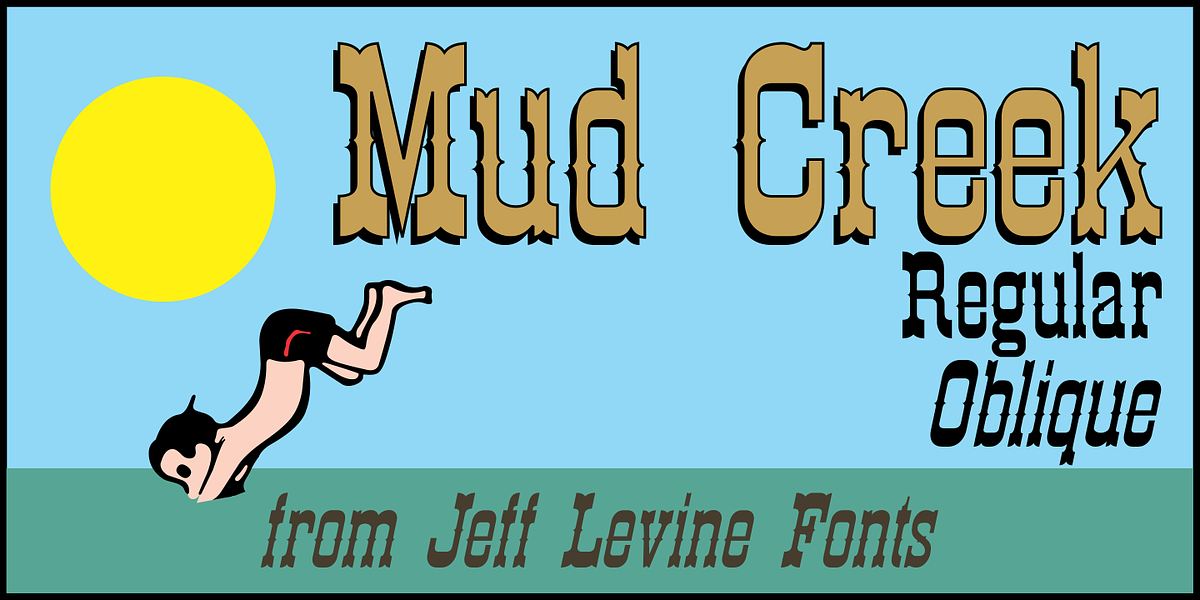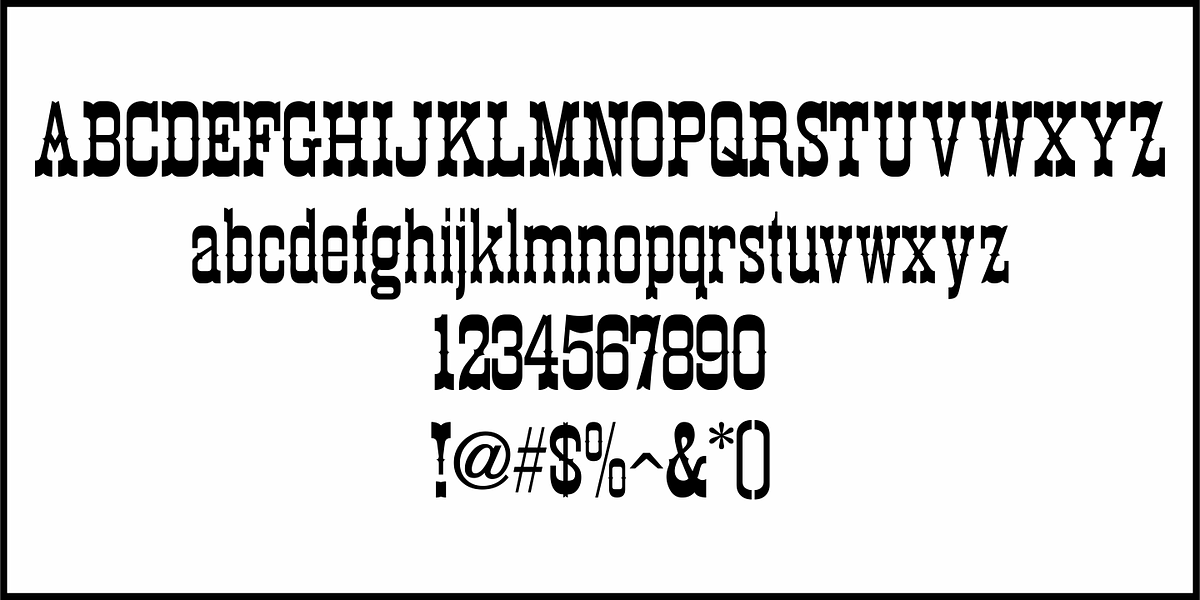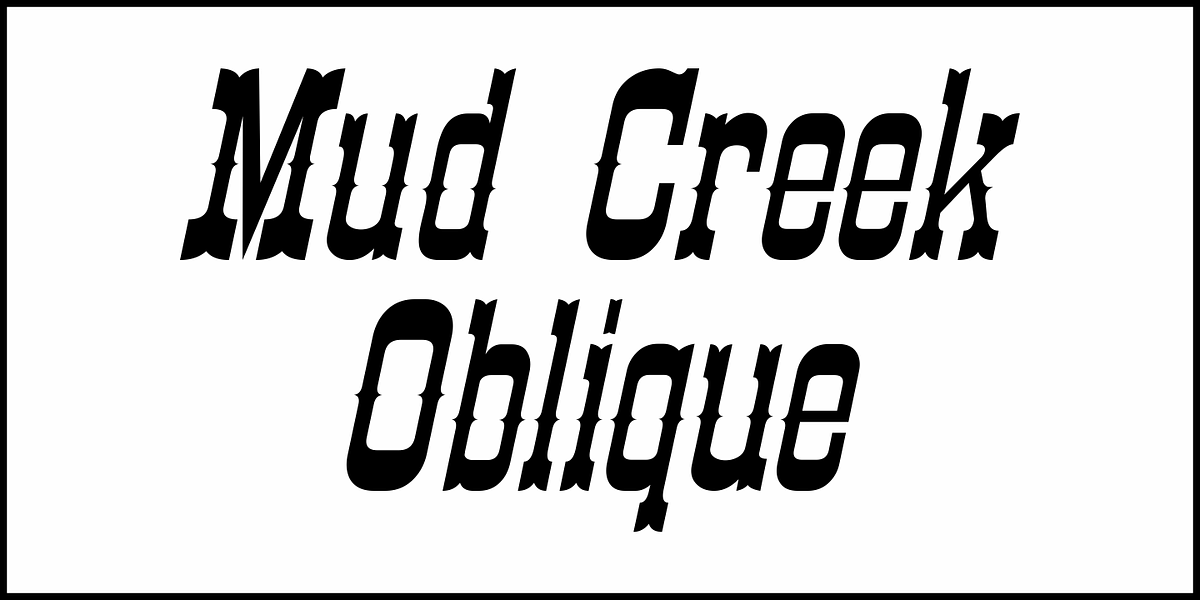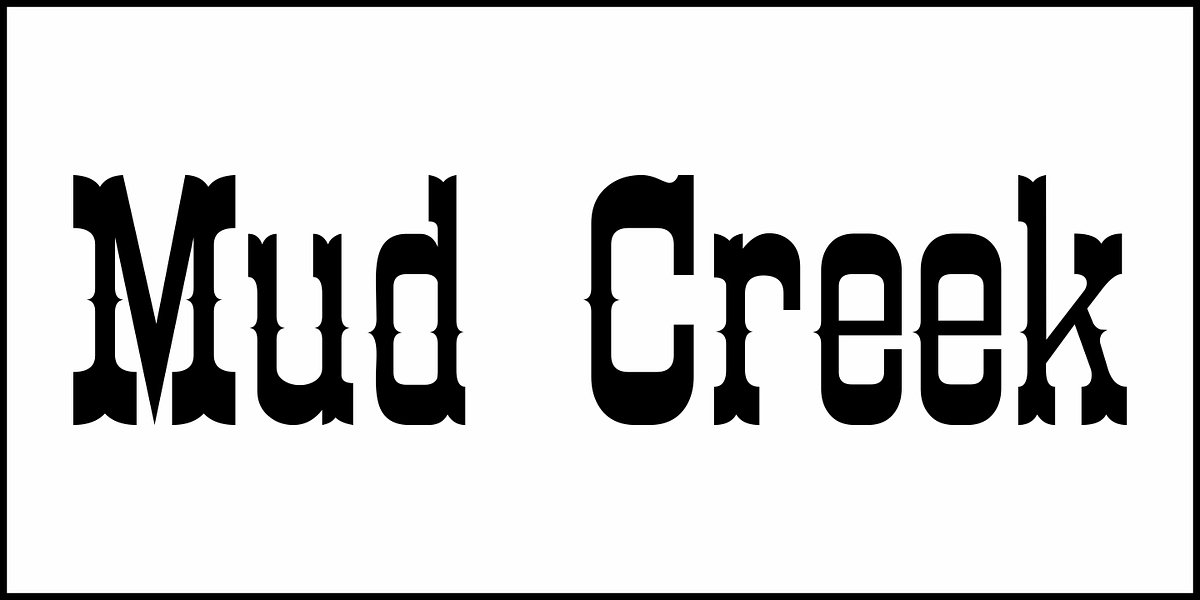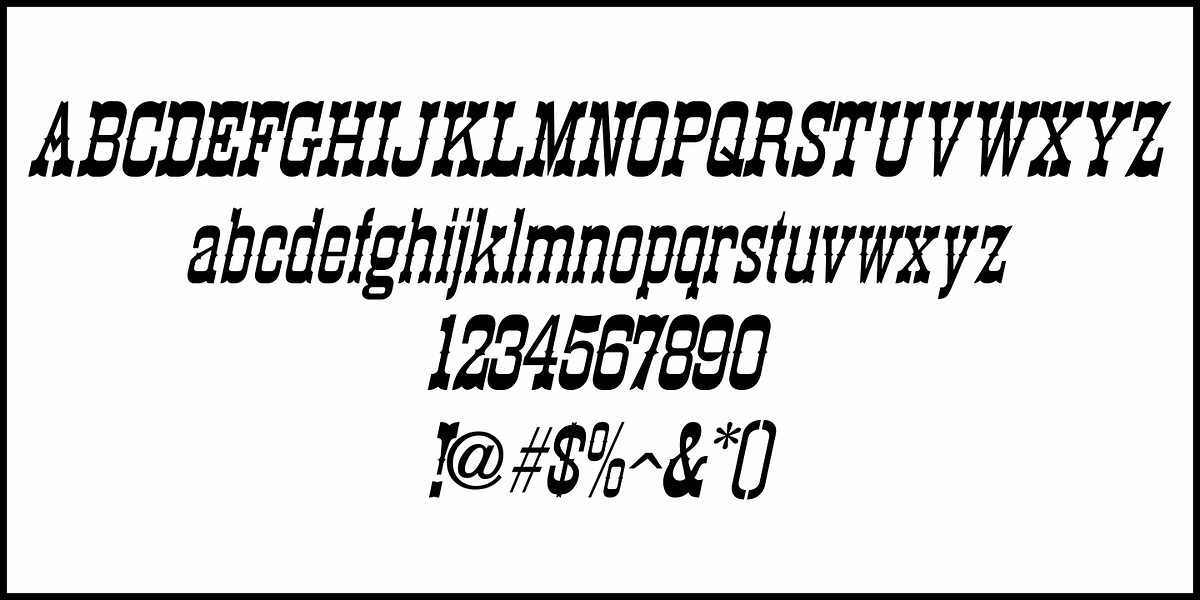
Mud Creek JNL
Mud Creek JNL is based on Tuscan Egyptian – a classic wood type with a decidedly Western feel, and is available in both regular and oblique versions